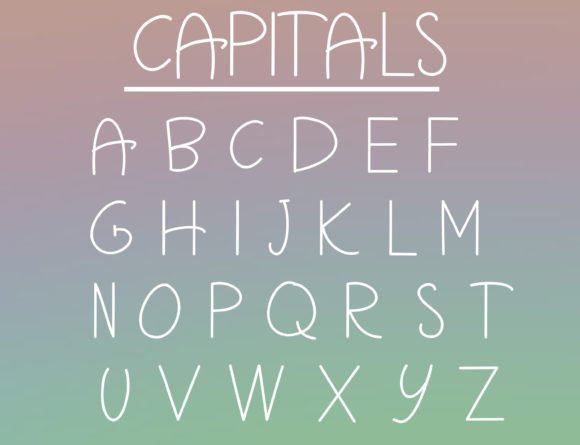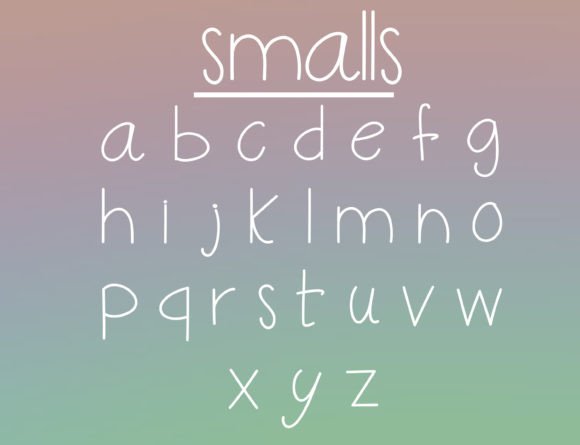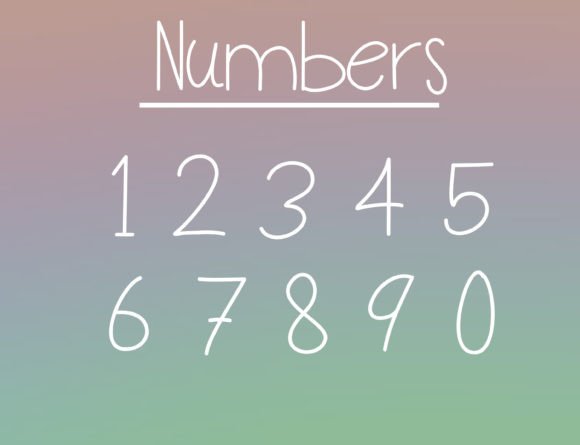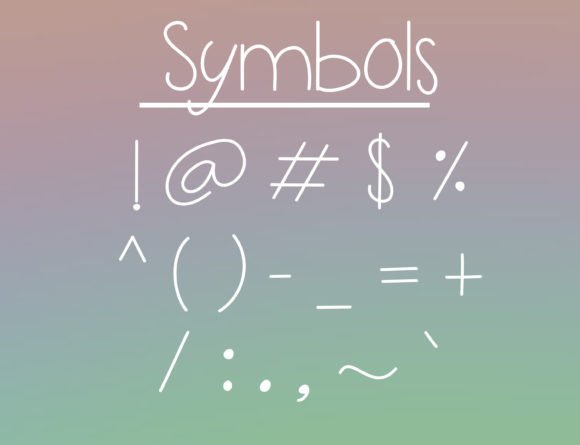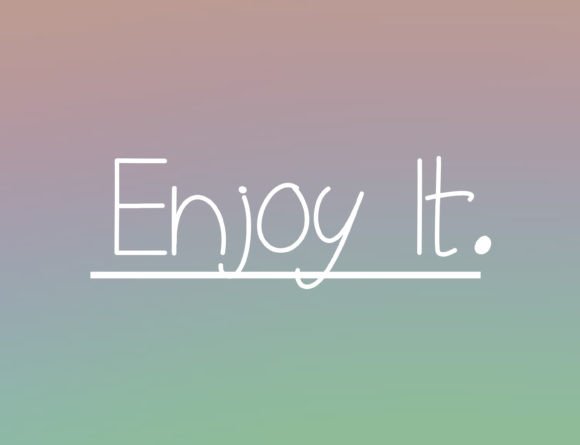
The Quest for the Perfect Font: Discovering Beautiful Life
I’ll never forget the time I was working on a project for a client who wanted a custom greeting card design. I had all the elements ready – the graphics, the colors, the overall aesthetic – but I was stuck on one thing: the font. I tried dozens of options, but none seemed quite right. That was until I stumbled upon Beautiful Life, a light and casual handwritten font that instantly clicked. In this article, I’ll share my experience with Beautiful Life, its features, and how to make the most of it in your designs.
An Honest Review of Beautiful Life
Beautiful Life is a lovely font that has quickly become a staple in my design toolkit. Here’s what I love about it:
- ✨ Light and airy feel: Beautiful Life has a delicate, handwritten quality that’s perfect for creating elegant and sophisticated designs.
- ✅ Highly versatile: This font works well for a wide range of projects, from crafts and digital design to presentations and greeting cards.
- 💫 Easy to read: Despite its light feel, Beautiful Life is surprisingly legible, even at smaller font sizes.
Of course, no font is perfect, and Beautiful Life has a few quirks:
- 🤔 Limited bold options: Beautiful Life is primarily a light font, and while it does offer some bold alternatives, they’re not as extensive as some other fonts.
- ⚠️ Some glyph limitations: While Beautiful Life has a wide range of glyphs, it may not have every special character or symbol you need.
Once you’ve selected Beautiful Life, you can experiment with OpenType features like ligatures and stylistic alternates to add visual interest to your design.
The Story Behind Beautiful Life
Beautiful Life was designed with the intention of creating a font that’s both elegant and approachable. The designer wanted to craft a font that would be perfect for a wide range of projects, from formal events to casual crafts. The result is a font that’s both refined and playful – a true chameleon.
| What is Beautiful Life font best used for? | Beautiful Life is a versatile font that’s perfect for crafts, digital design, presentations, greeting cards, and more. |
| Is Beautiful Life a script font? | While Beautiful Life has a handwritten feel, it’s not strictly a script font. It’s more of a casual, elegant font. |
| Does Beautiful Life support OpenType features? | Yes, Beautiful Life supports OpenType features like ligatures, stylistic alternates, and glyphs. |